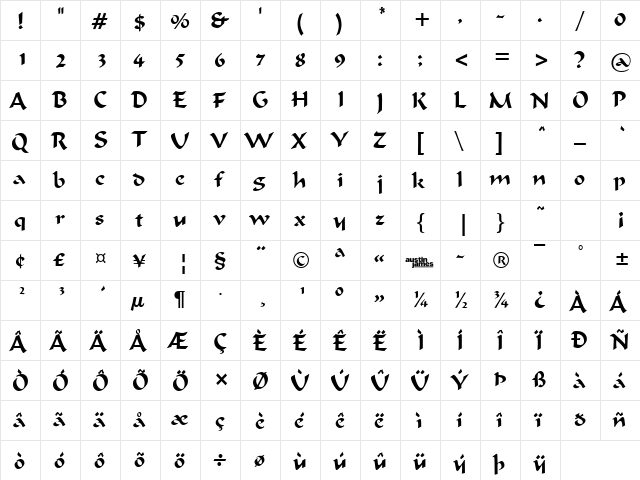
Ignacio Regular
Design Context for Ignacio Typeface
Ignacio is a composed and adaptable typeface that performs quietly and consistently across a wide range of design contexts.